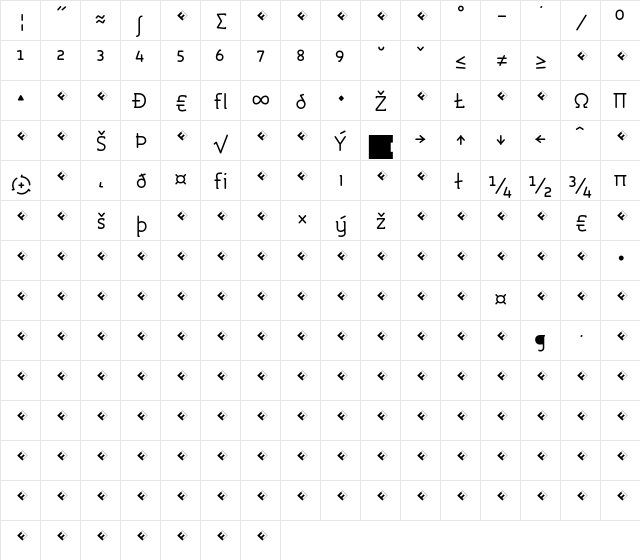
Roice-RegularExpert Regular
Design Context for Roice-RegularExpert Typeface
Roice-RegularExpert takes a measured approach to typography — its balanced proportions and neutral character make it a reliable workhorse for both digital and print work.